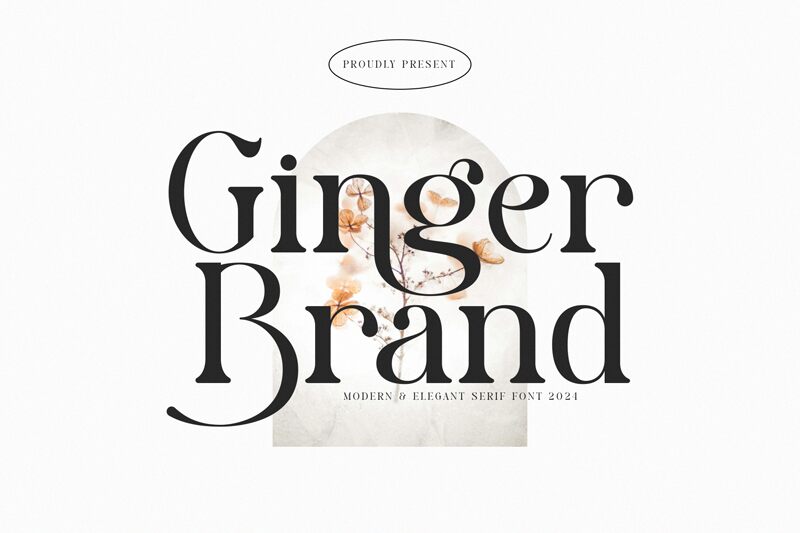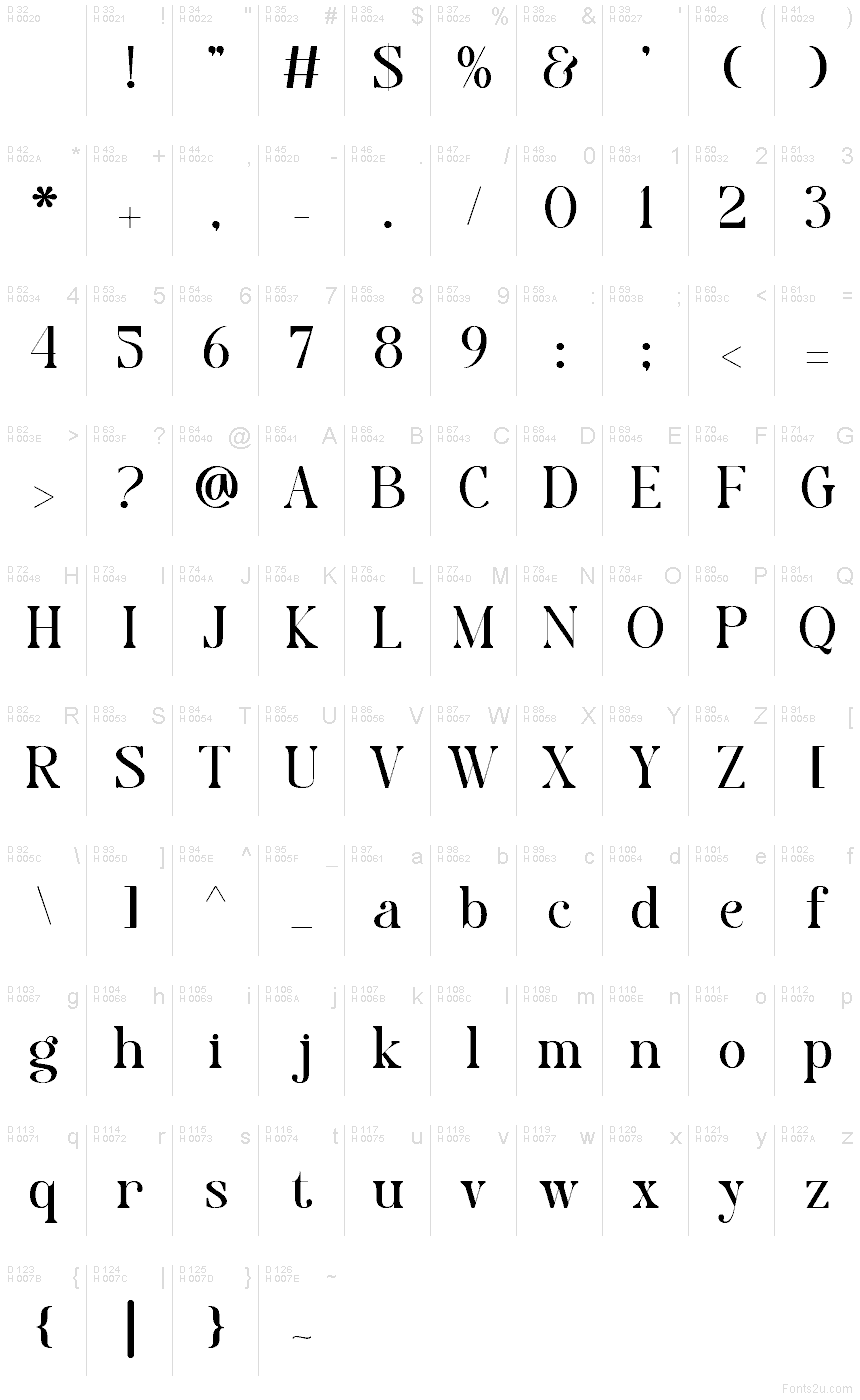
Ginger Brand
Ginger Brand font by Muflieart is a free serif typeface. Its inky ball terminals and crisp, chiseled serifs give each word a gentle snap, while the smooth curves keep it warm and refined. The rhythm feels steady and confident—great for names that need to sound established without looking stuffy.
Using Ginger Brand, wordmarks lock up neatly thanks to its balanced spacing and tidy verticals, so it shines on brand identities, packaging, beauty labels, editorial headers, boutique signage, menu design, and social posts. This free font holds shape at larger sizes yet stays readable in short text. Pair it with a simple geometric sans for captions or small-print details.